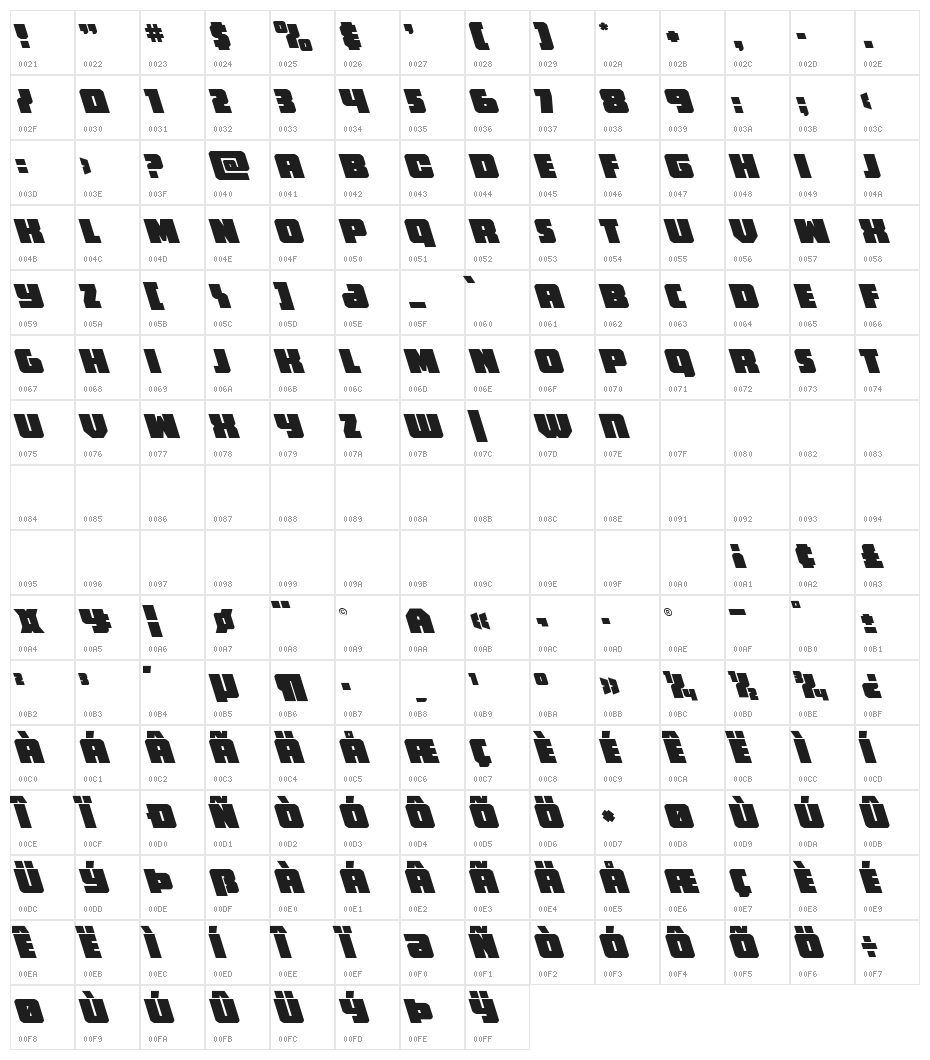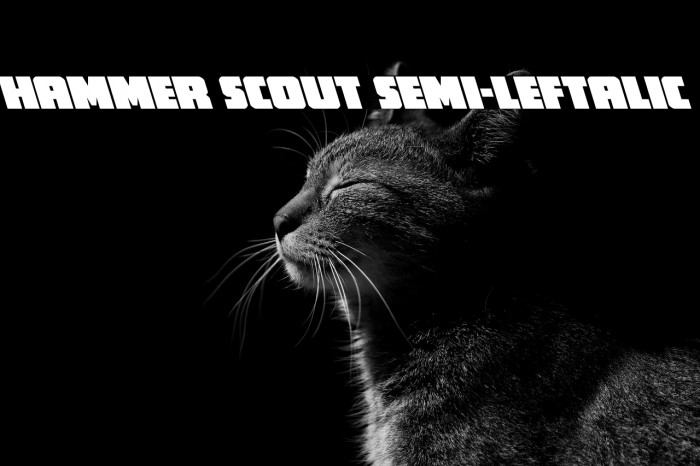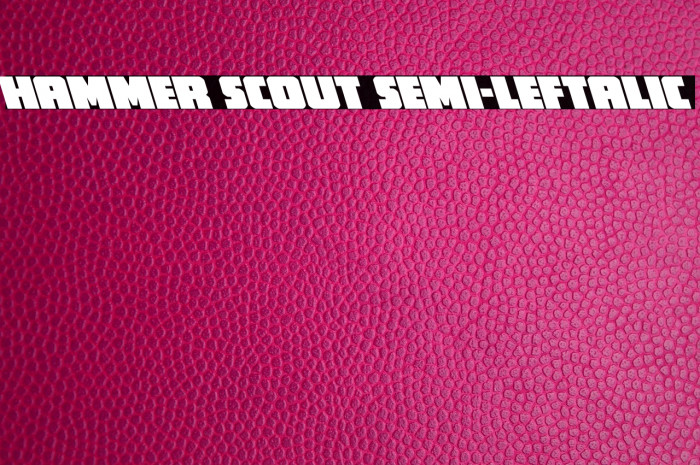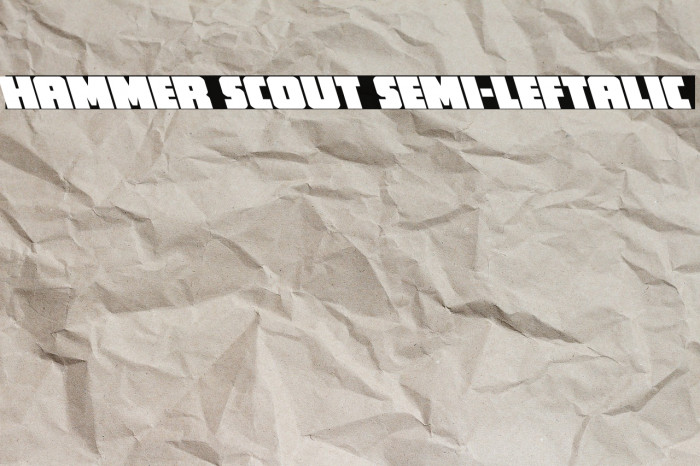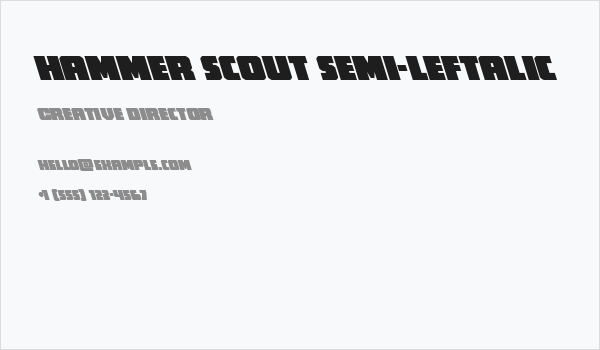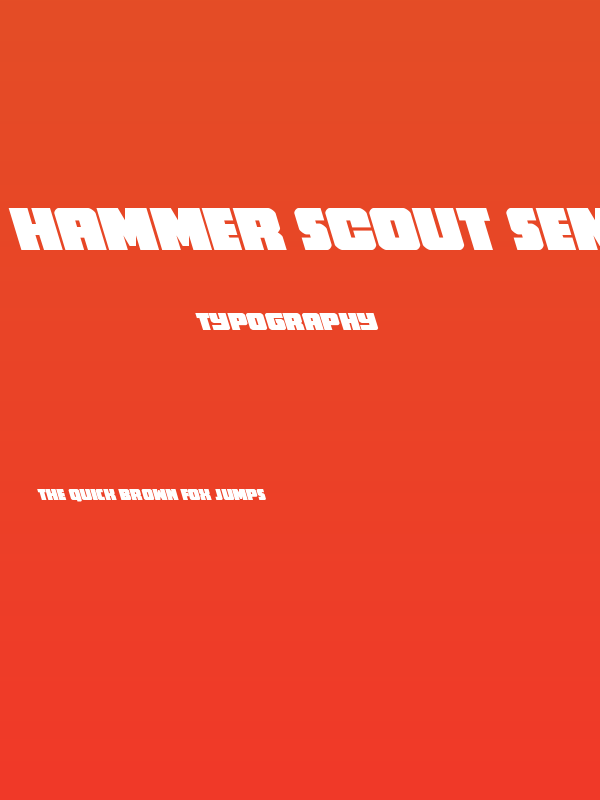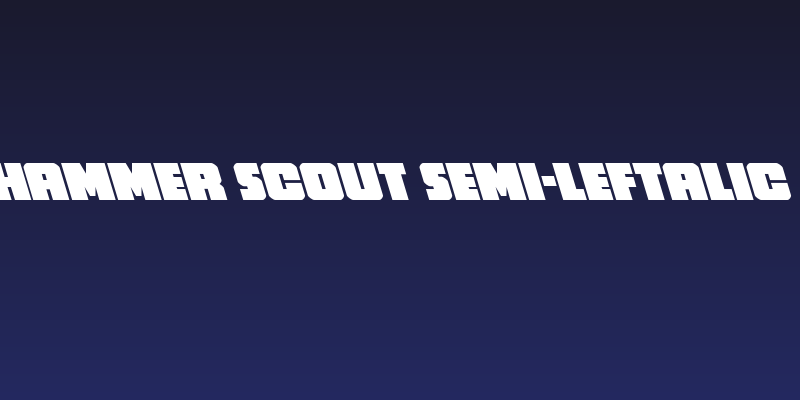
Hammer Scout Semi-Leftalic Font
Hammer Scout Semi-Leftalic Description
This font features a bold, impactful design with a strong presence. The characters are heavily weighted and have a distinct slant to the left, giving them a dynamic and energetic appearance. The strokes are thick and consistent, contributing to a robust and solid look. The overall style is modern and assertive, making it suitable for attention-grabbing headlines or branding materials. The character spacing is tight, enhancing the compact and cohesive feel of the text.